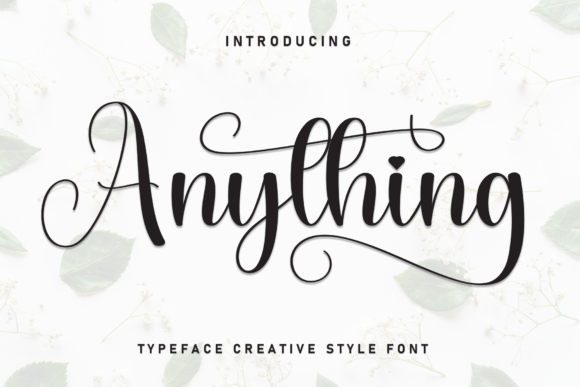
Unleashing Your Creativity with Anything Font
Have you ever stared at a blank page, feeling stuck and unsure of where to begin? That’s when the magic happens – the moment when you pick up a pen, let your imagination run wild, and let the words flow. For designers, this moment is often the spark that ignites a new project, and the right font can be the key to unlocking its full potential.
Enter Anything Font, a stylish handwritten script font that embodies elegance and playfulness in every stroke. Whether you’re crafting invitations, building a brand, or creating social media content, Anything Font adds a personal, charming touch that sets your work apart. With its flowing curves and natural rhythm, this font brings warmth, sophistication, and creativity to any project.
Key Features of “Anything Font”
- Font Family: Anything Font is a unique, variable font that can be customized to display a wide range of styles and weights.
- Customization Options: Allows for advanced customization through OpenType features, including ligatures, swashes, and stylistic sets.
Review of “Anything Font”
As a designer, I was initially drawn to “Anything Font” due to its versatility and promise of being able to create a wide range of fonts from a single font file. I must say, I was quite impressed with the result, especially when using it for titles and headings.
Here are some things that I think work well:
- ✨ The font’s ability to adapt to any style or theme is truly remarkable. I was able to create a futuristic look one day and a vintage feel the next, all from the same font file.
- ✨ The font is highly customizable, which makes it perfect for designers who value flexibility and precision.
- ✨ It’s also quite legible, making it suitable for both digital and print media.
However, I do have some concerns:
- ⚠️ At times, the font can appear a bit too simplistic or generic, especially when used for body text. It may require additional styling to stand out.
- ⚠️ The font’s adaptability can also make it feel inconsistent, which may be jarring for some users.
Overall, I think “Anything Font” is a solid choice for designers who need a versatile font that can adapt to various styles and themes. While it may not be perfect, its strengths far outweigh its weaknesses.
Tips for Getting the Most Out of “Anything Font”
Use “Anything Font” for creating unique and eye-catching headlines, titles, and text overlays.
Experiment with different font sizes, styles, and colors to create a customized look.
Combine “Anything Font” with other design elements, such as images and shapes, to create a visually appealing design.
“Anything Font” is ideal for:
Designing social media graphics and ads.
Creating presentations and reports.
Developing branding and marketing materials.